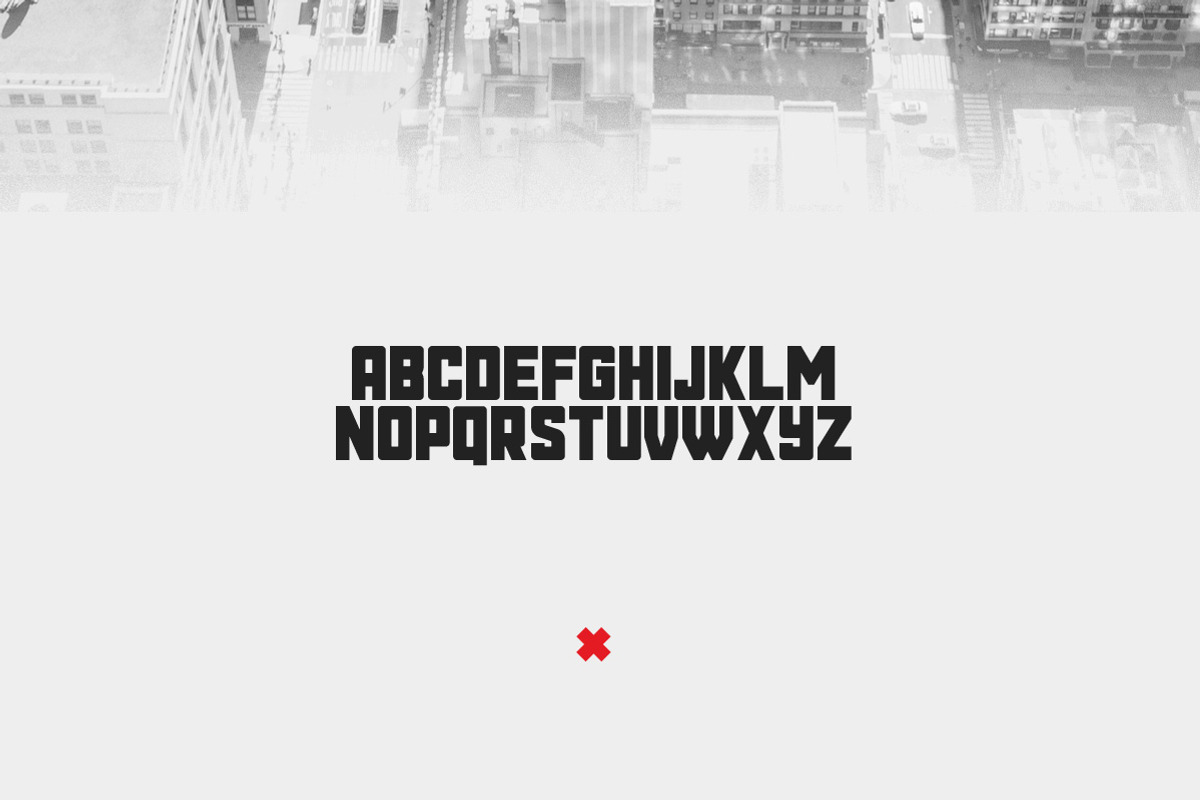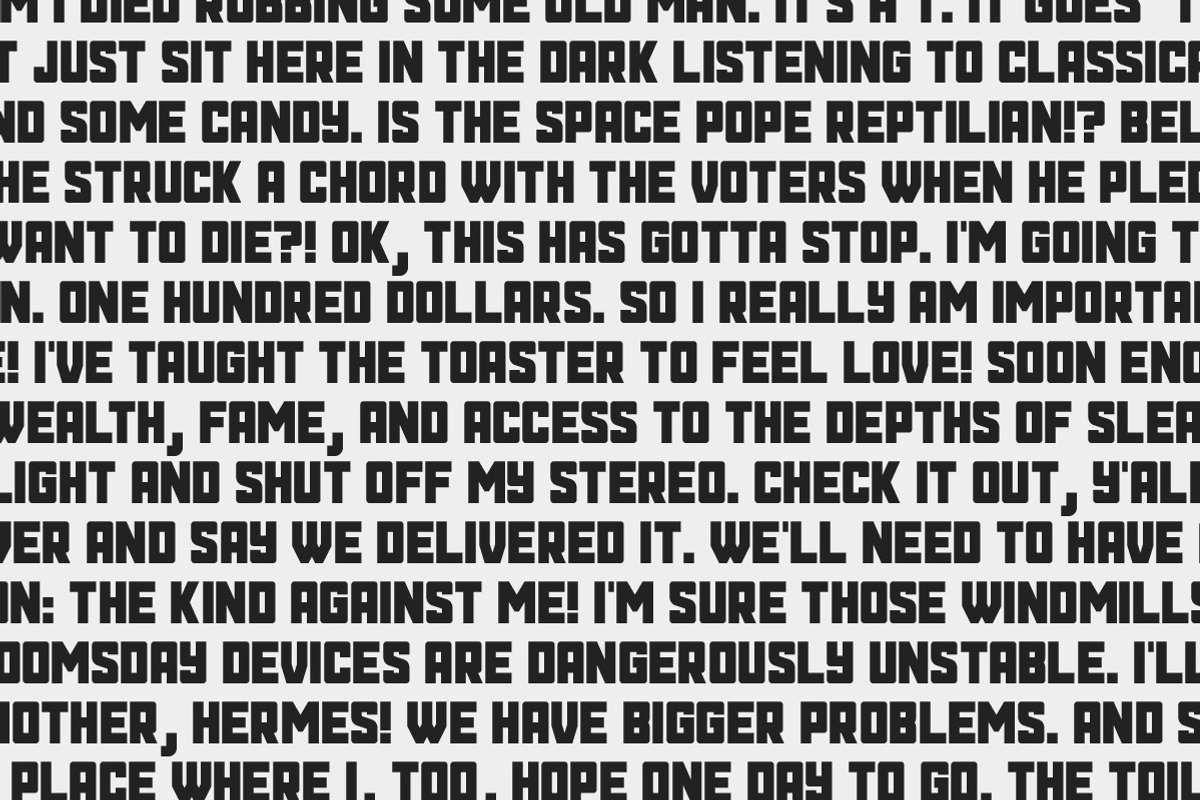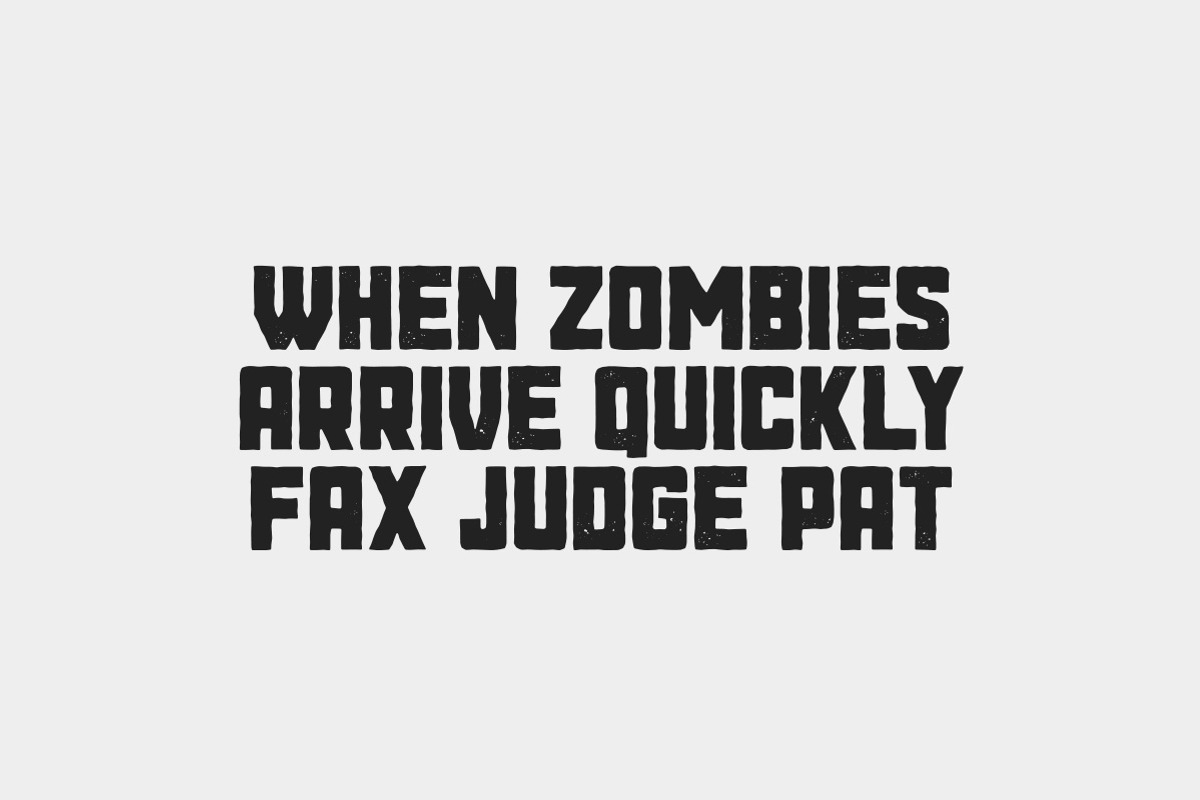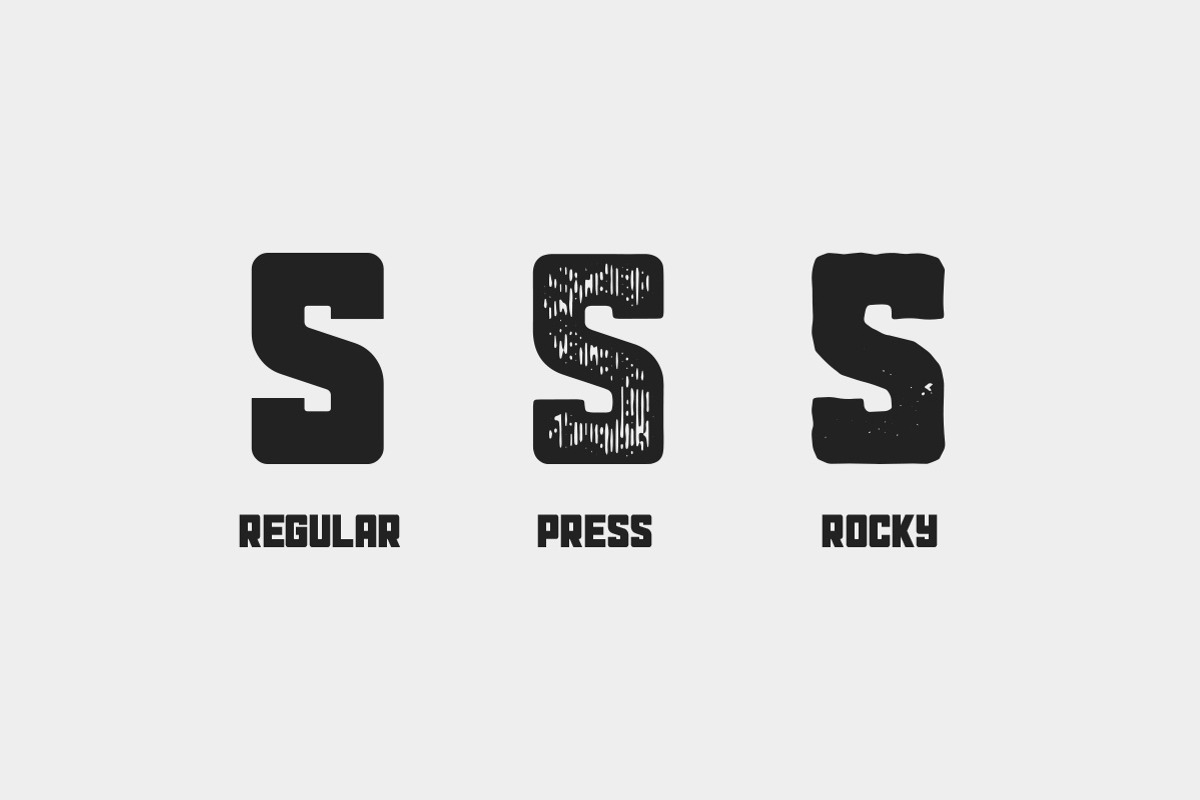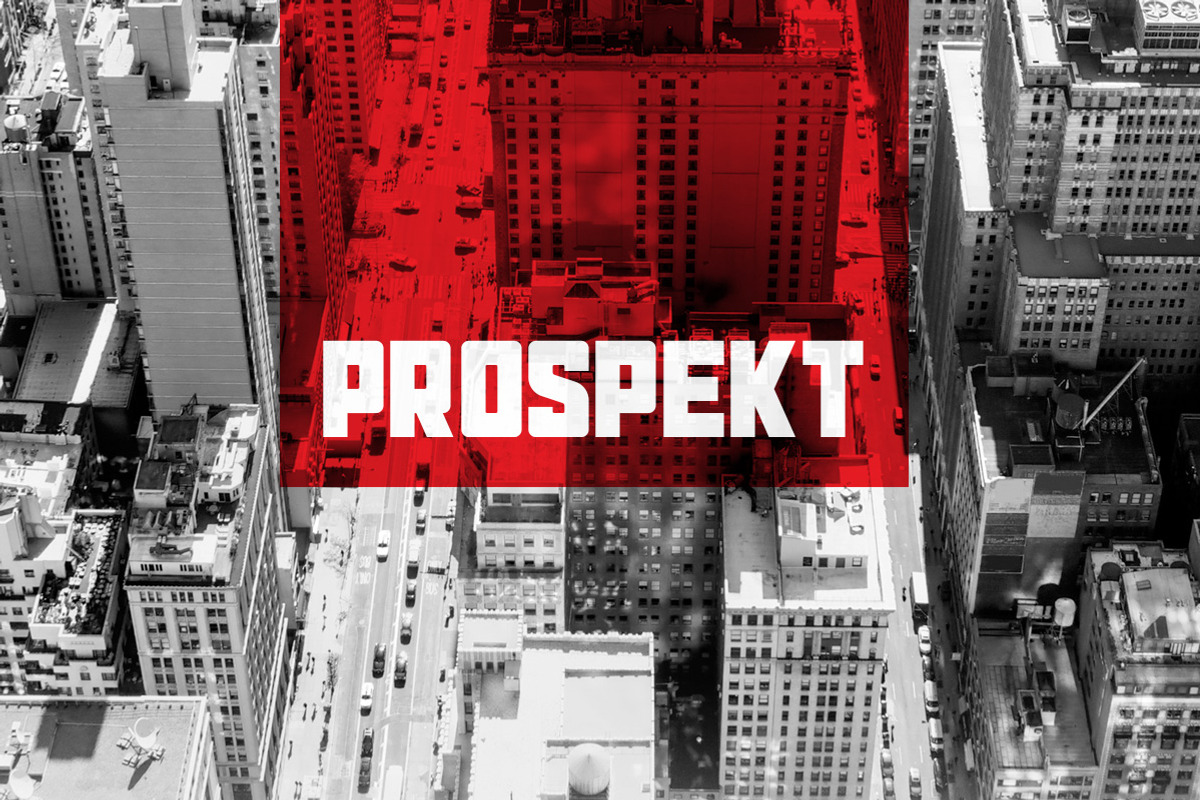
Prospekt Typeface
Prospekt is a big and bold typeface that's great for attention grabbing headlines. It comes in regular, press and rocky styles. It includes uppercase multilingual letters, punctuation and numerals.